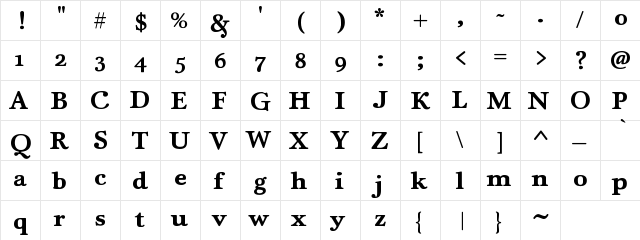
_SantaCruz Regular
Design Context for _SantaCruz Typeface
_SantaCruz offers clean, dependable letterforms without strong stylistic allegiance, making it a practical choice for designers who need flexibility.